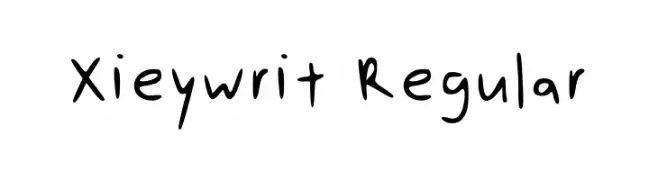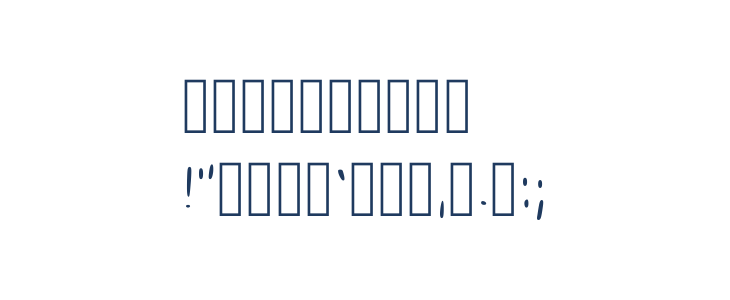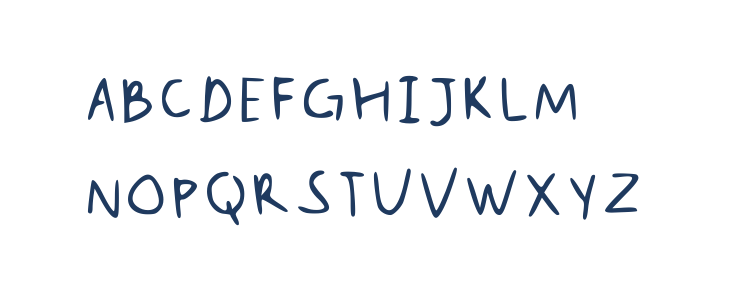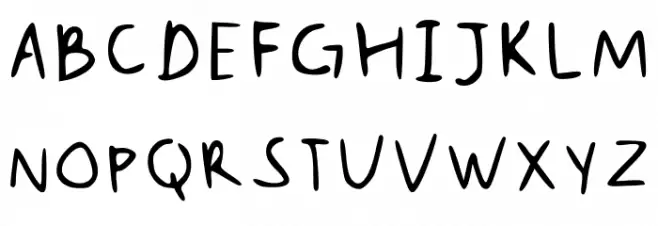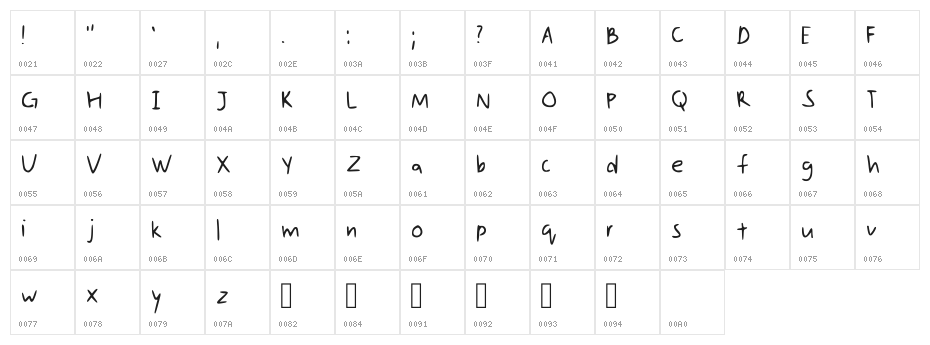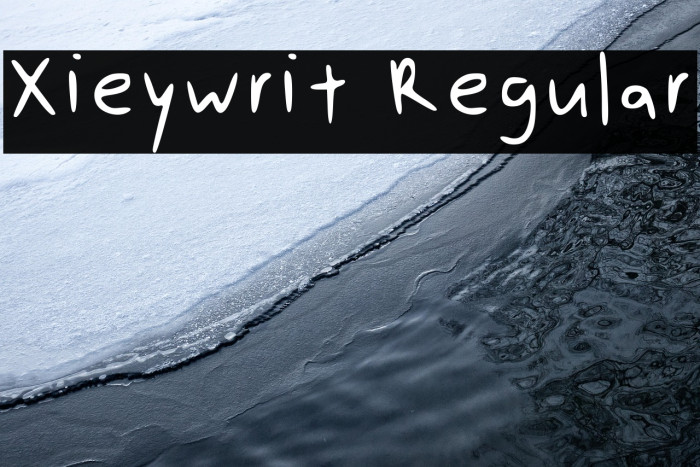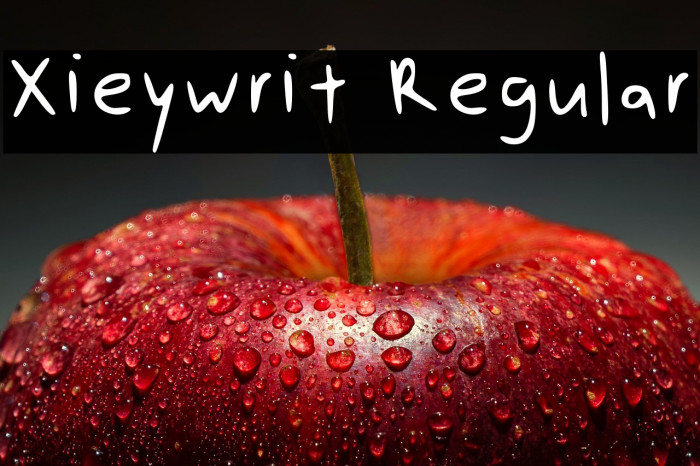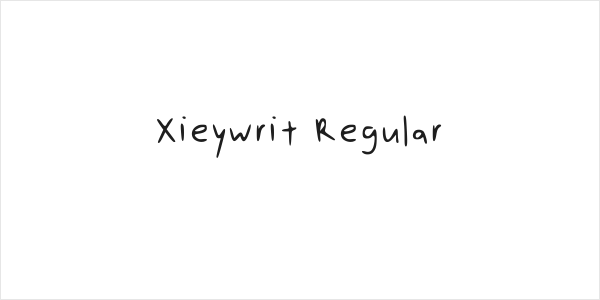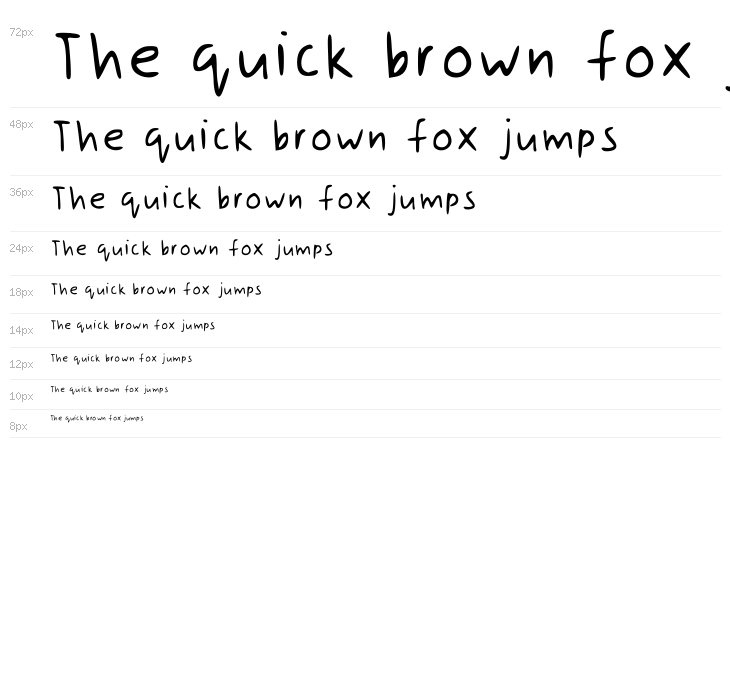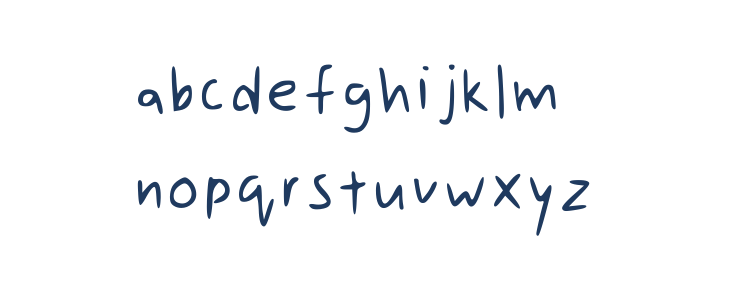
Xieywrit Regular Font
Xieywrit Regular Description
A casual, handwritten style font with a playful and informal appearance, featuring slightly irregular letter shapes and a friendly vibe.
| Overall Style | Casual, Playful, Friendly |
| Use Case | Headlines, Body text, Invitations, Creative projects |